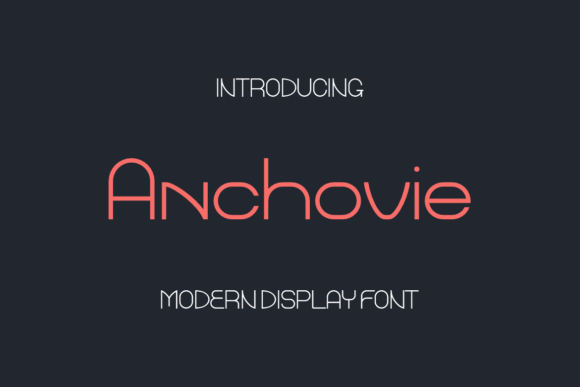
The Ultimate Guide to Anchovie Font: Elevate Your Designs with this Modern Sans Serif
I’ll never forget the design struggle is real moment I had last week. I was working on a branding project for a trendy new cafe, and I just couldn’t find the perfect font to capture their vibe. That was until I stumbled upon Anchovie Font. This modern sans serif display font has been a game-changer for me, and I’m excited to share my experience with you!
First Impressions: A Personal Review
So, what makes Anchovie Font so special? Here are the things I love:
• ✨ Unique and natural style that stands out from the crowd
• ✅ Highly versatile and adaptable to various design projects
• 💡 Wide range of OpenType features and glyphs to experiment with
• 🎉 Stylistic alternates to add a touch of personality to your text
Of course, no font is perfect, and Anchovie Font has a few minor quirks:
• 🤔 Some users might find the font a bit too bold for certain applications
• ⚠️ Limited availability of certain characters, such as ligatures
The Story Behind Anchovie Font
Anchovie Font was designed with the goal of creating a modern sans serif font that exudes a sense of natural elegance. The designer, inspired by the simplicity and sophistication of urban landscapes, aimed to craft a font that would be both versatile and unique. Through a combination of traditional typography techniques and digital innovation, Anchovie Font was born.
What is the best use for Anchovie Font? Anchovie Font is ideal for display and headline text, but it can also be used for body text in certain design applications.
In conclusion, Anchovie Font is a versatile and modern sans serif display font that can elevate your designs to the next level. With its unique style, wide range of OpenType features, and adaptability to various design projects, it’s an excellent choice for designers, crafters, and creative hobbyists alike.